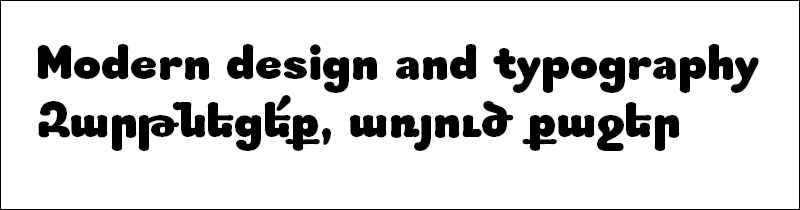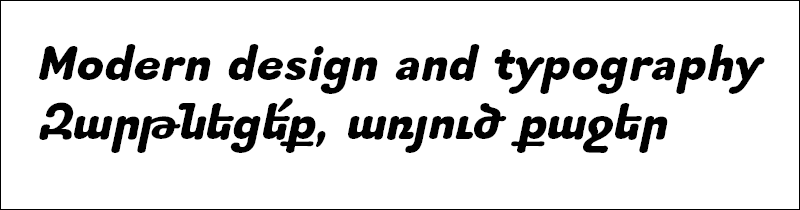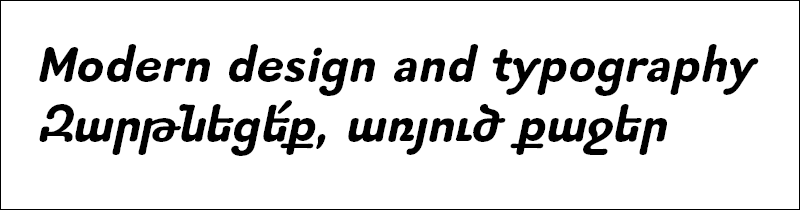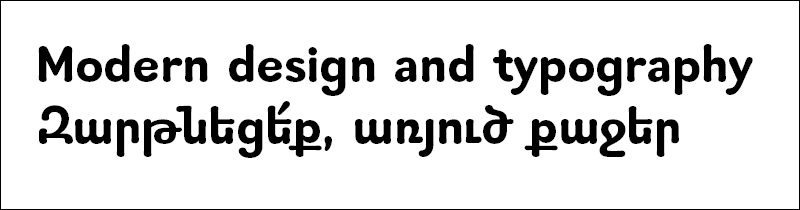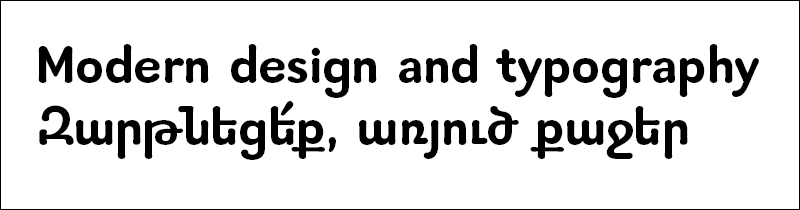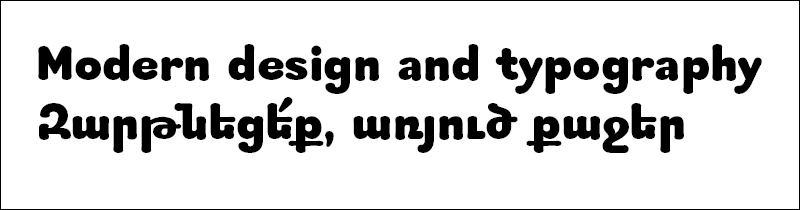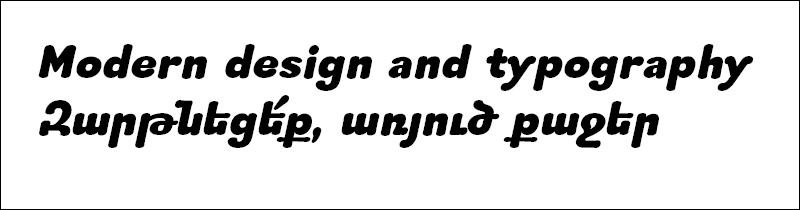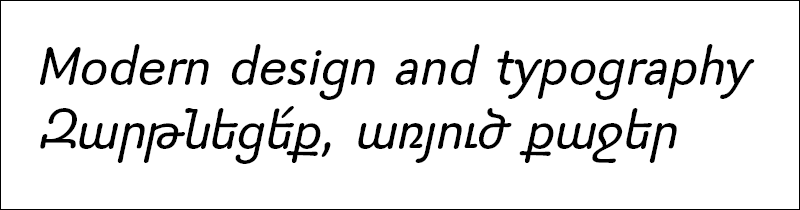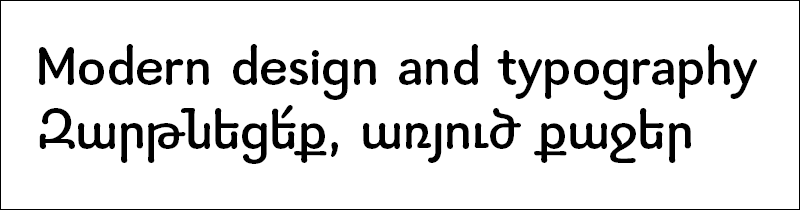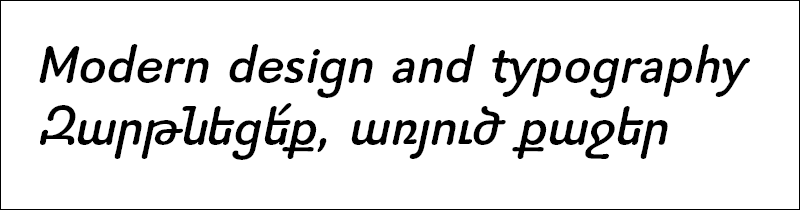
HASH Eva
Designer: Hrachuhi Grigoryan
Design date: 2017
This typefaces was awarded 1-st prize at the GRANSHAN 2017 non-Latin typedesign competition.
The font family includes: Armenian and Latin alphabet systems. It has 16 weights:   Regular, Italic, Medium, Medium Italic, SemiBold, SemiBold Italic,  DemiBold, DemiBold Italic, Bold, Bold Italic, ExtraBold, ExtraBold Italic, Heavy, Heavy Italic, Black, Black Italic.
This font can be used as display and text font.